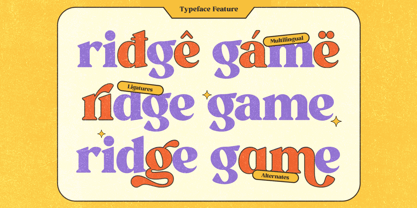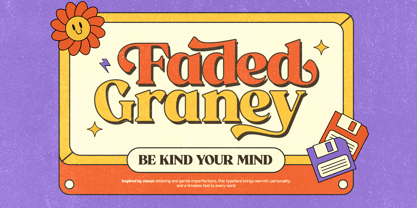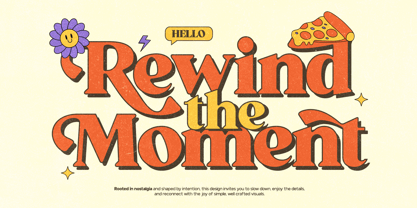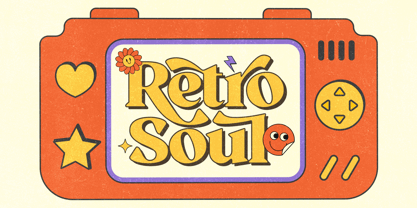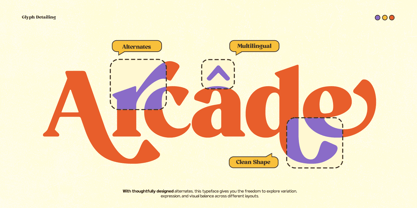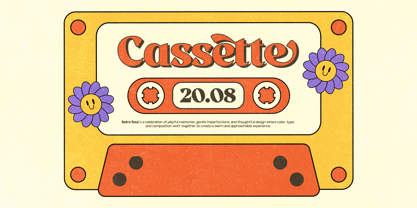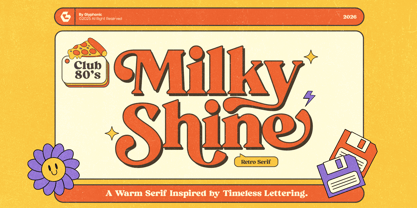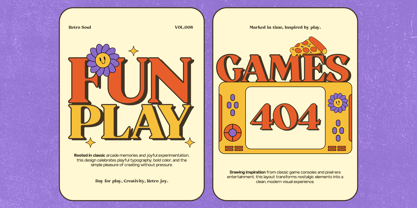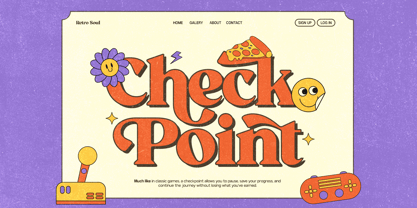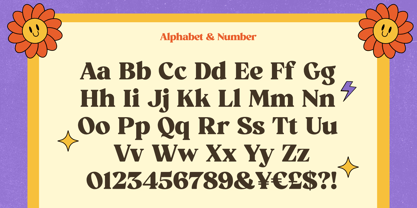
GC Chief Ranced
by Onyx Studio
The GC Chief Ranced Font Family was designed by Muhammad Hafiizh Solana and published by Onyx Studio. GC Chief Ranced contains 2 styles and family package options. More about this family
GC Chief Ranced – Serif Elegant Font is a refined serif typeface crafted to embody elegance, sophistication, and timeless beauty within modern design contexts. Built on graceful proportions and delicate yet confident letterforms, Chief Ranced delivers a distinctive voice that feels both classic and contemporary. Designed as a versatile serif family, GC Chief Ranced transitions effortlessly from subtle editorial text to expressive headline statements. Its balanced contrast, smooth curves, and carefully shaped serifs create a harmonious rhythm that enhances readability while maintaining a luxurious presence. With a perfect blend of tradition and modern refinement, GC Chief Ranced is ideal for fashion branding, wedding designs, editorial layouts, luxury packaging, high-end visual identities, and artistic compositions. Whether used in Regular or Italic styles, it offers a sophisticated typographic foundation that elevates every design with warmth and character. Features: Uppercase & Lowercase Numbers & Punctuation Regular & Italic Styles Elegant Serif Construction Multilingual Support Bring timeless elegance, refined detail, and expressive sophistication into your design with GC Chief Ranced – Serif Elegant Font.
Designers: Muhammad Hafiizh Solana
Foundry: Onyx Studio